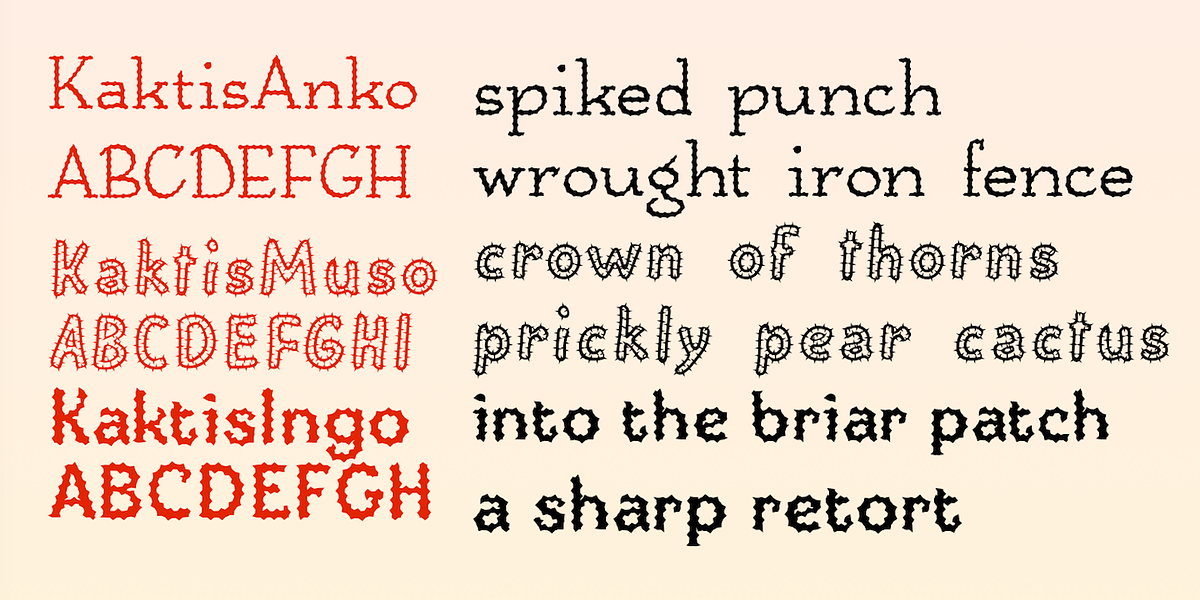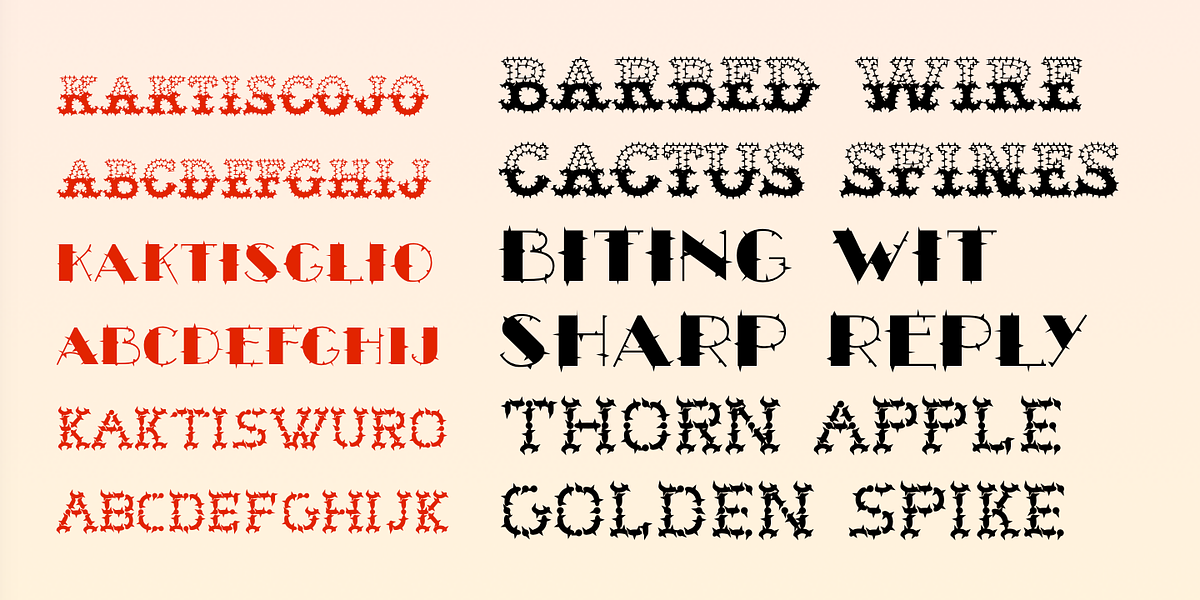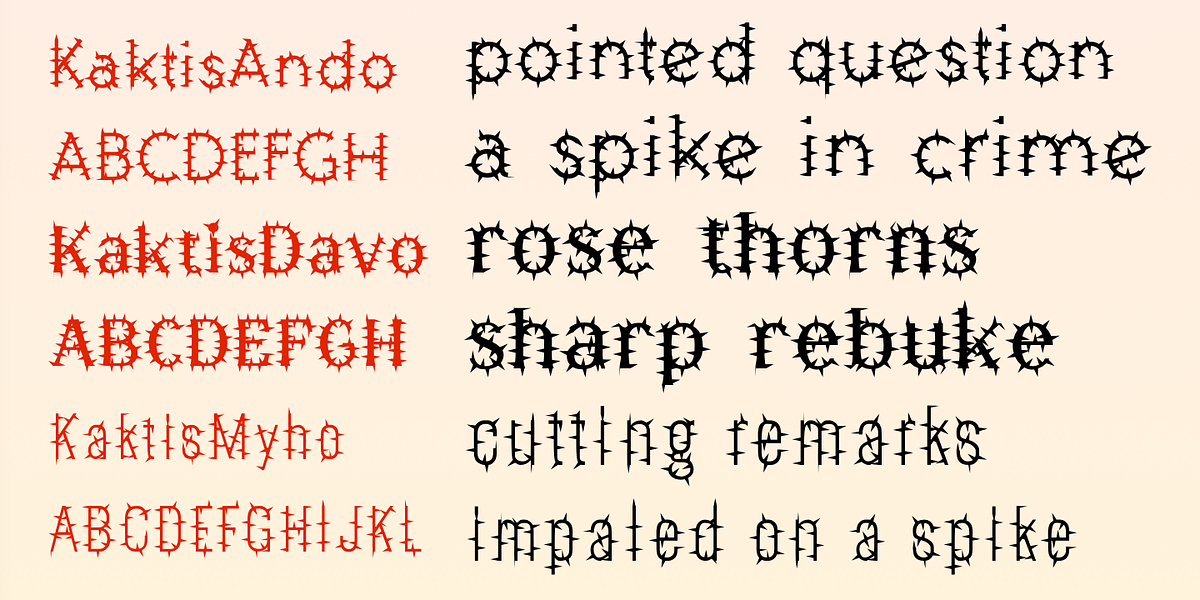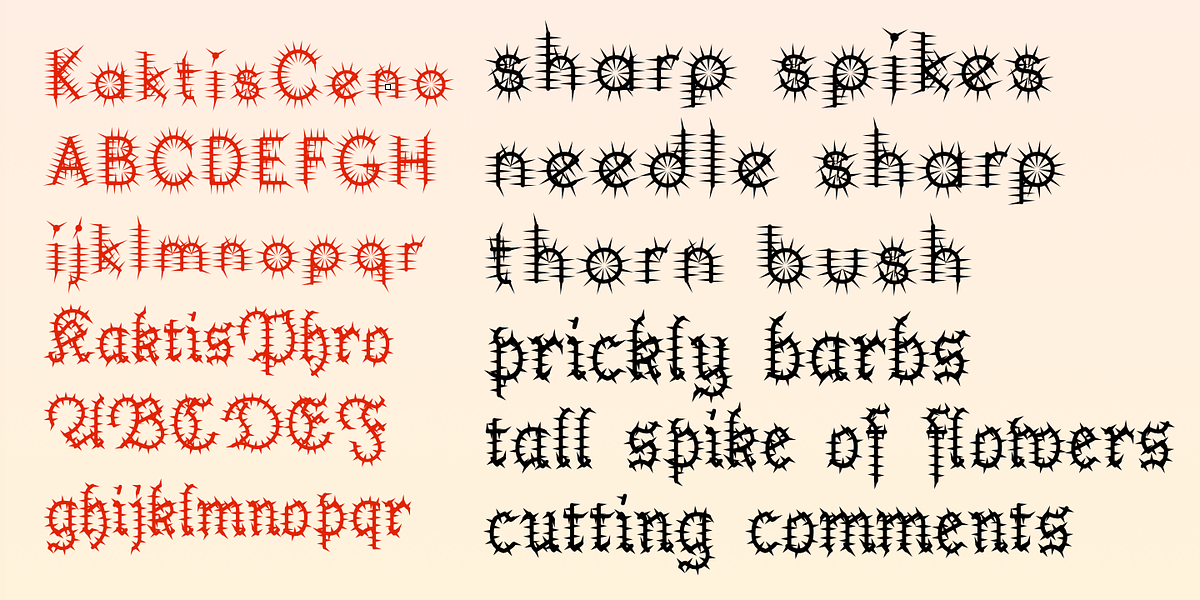
Kaktis
The Kaktis collection is a set of eleven novelty display fonts characterized by their unique spiked or spined serifs. Created in the mid-1990s using font distortion software, these all-caps typefaces are ideal for catching attention and conveying a sense of sharpness or urgency. While they have limited practical applications due to their highly stylized nature, they can be valuable tools for designers looking to create eye-catching headlines, pointed reminders, or other projects where a distinctive visual impact is desired.